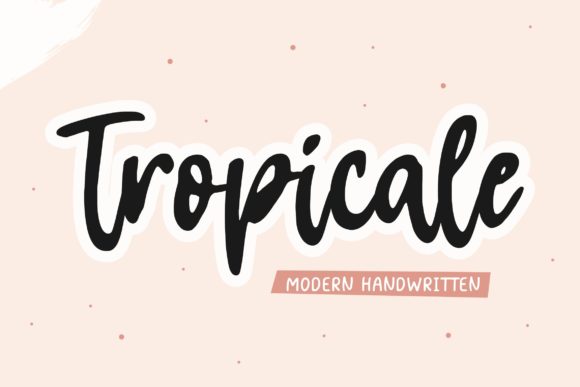
Introducing Tropicale Script Font: A Stroke of Beauty for Your Wedding Cards
In the realm of written artistry, where words dance gracefully on paper, Tropicale Script emerges as a breathtaking creation. Born from the imagination of Balpirick, this cursive handwritten font possesses an allure that captivates the senses and leaves an indelible mark on the heart.
Tropicale is not merely a font; it's an expression of joy, romance, and elegance. Its gentle curves and flowing lines evoke a sense of playfulness and delight, while its delicate strokes add a touch of sophistication to any design. Whether you're crafting wedding invitations, save-the-dates, or any other heartfelt message, Tropicale Script promises to elevate your words with its inherent charm.
Imagine your wedding invitation adorned with the Tropicale Script font. Its graceful characters will dance across the page, inviting guests to a celebration filled with love and laughter. The delicate swashes and flourishes add an air of elegance, hinting at the beauty and significance of the occasion. As your loved ones receive this invitation, they'll be instantly captivated by its allure, eagerly anticipating the joyous event to come.
With Tropicale Script, you have the power to transform ordinary words into an extraordinary love story. Your wedding vows, written in this enchanting font, will carry an emotional weight that resonates with every guest. Each stroke, each curve, each letter will convey the depth of your love and commitment, leaving an everlasting impression on the hearts of all who witness this special moment.
Beyond wedding stationery, Tropicale Script finds its home in a myriad of creative projects. Its versatility knows no bounds. Use it to design heartfelt greeting cards, add a personal touch to your blog or website, or create captivating social media graphics that speak to your audience. Tropicale Script has the power to transform the mundane into the marvelous, turning everyday communications into cherished keepsakes.
With Tropicale Script at your fingertips, you'll embark on a journey of creativity, where your ideas flourish and your designs bloom. Embrace the beauty of this font, allow its grace to inspire you, and watch as your projects take on a life of their own. Let Tropicale Script be your muse, your guiding light, as you create masterpieces that resonate with emotion and leave a lasting impact.